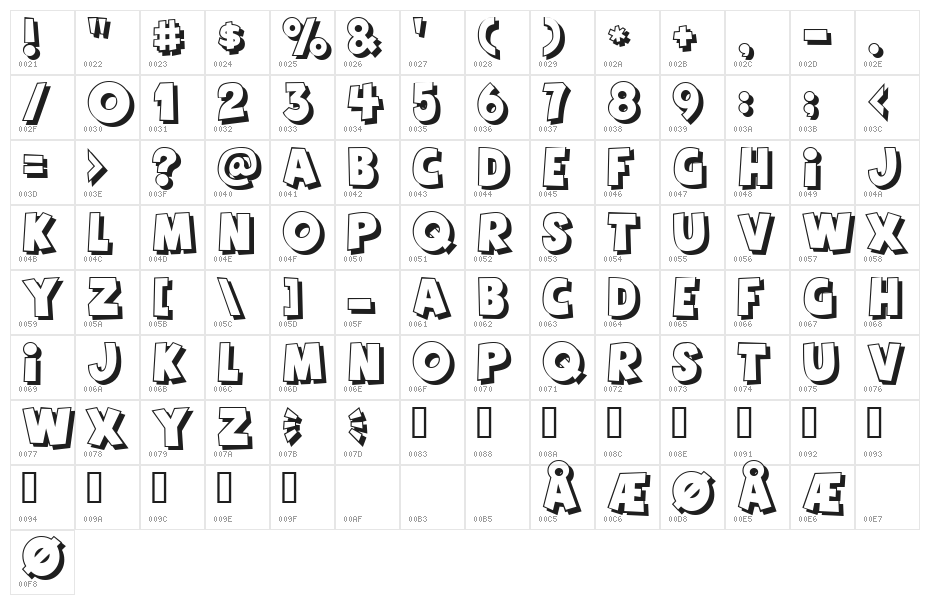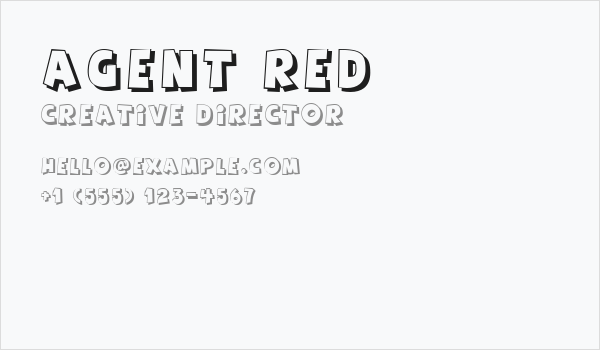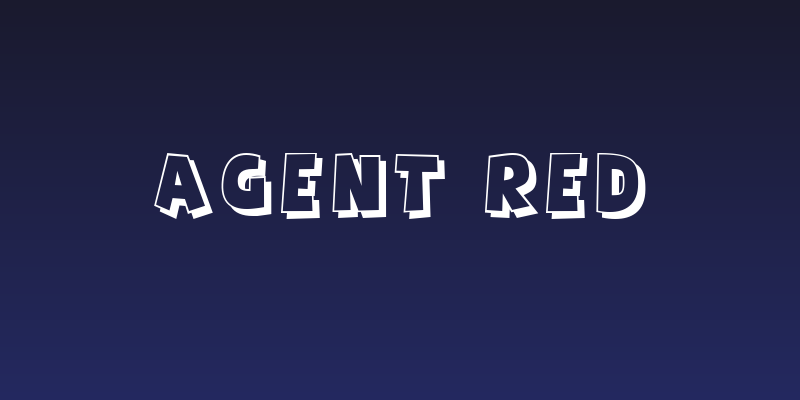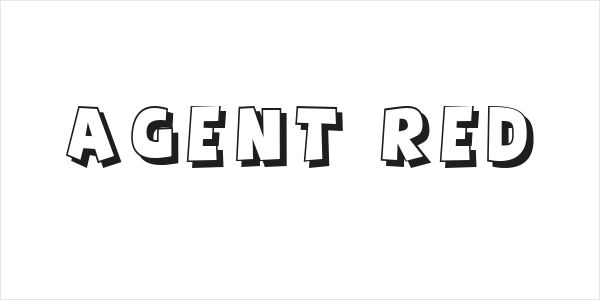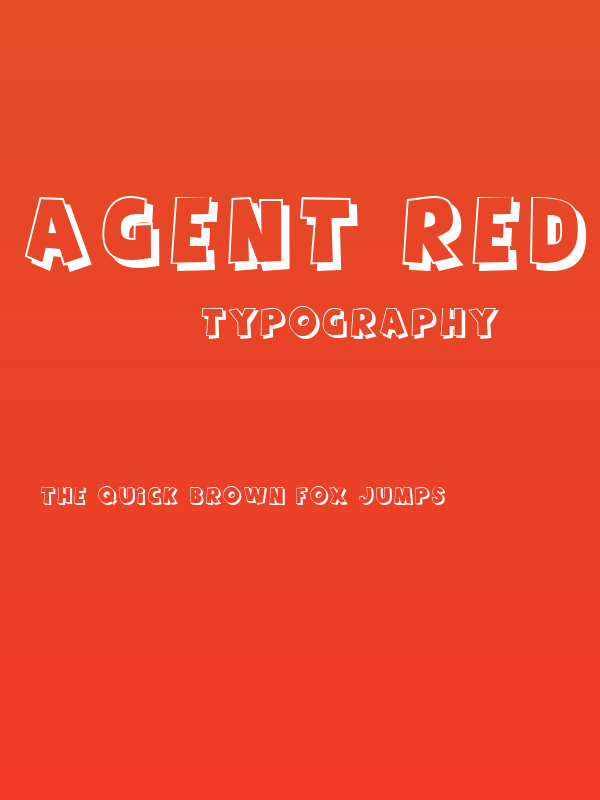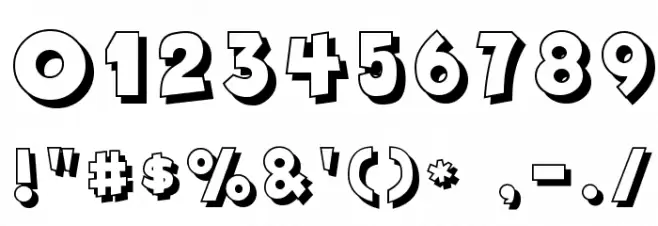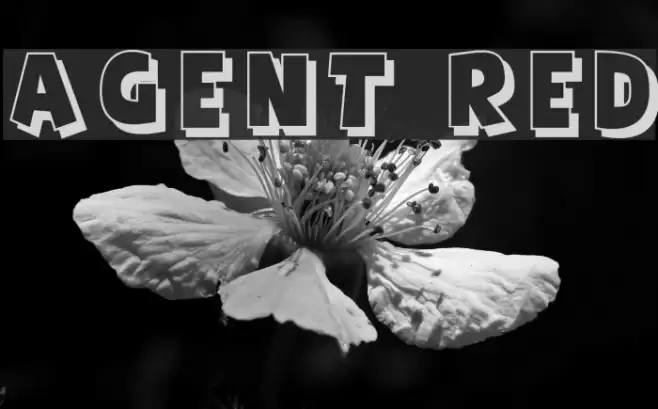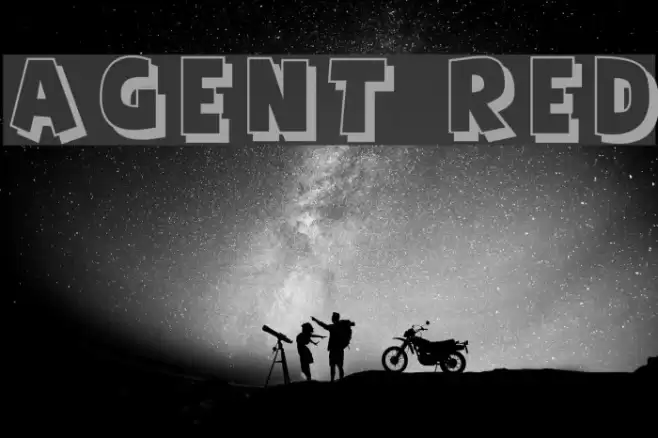
Agent Red Font
Agent Red Description
This font features a bold, playful style with a three-dimensional shadow effect that gives it a dynamic and eye-catching appearance. The characters are blocky and robust, with a slight tilt that adds a sense of movement and energy. The uppercase and lowercase letters maintain a consistent width, contributing to a cohesive look. The numbers and special characters follow the same design principles, ensuring uniformity across all glyphs. This font is ideal for projects that require a fun and engaging visual impact, such as children's books, comic strips, or playful branding materials.
| Overall Style | Playful, Dynamic |
| Proposed Projects | Ideal for children's books, comic strips, playful branding, or any project needing a fun, dynamic look. |